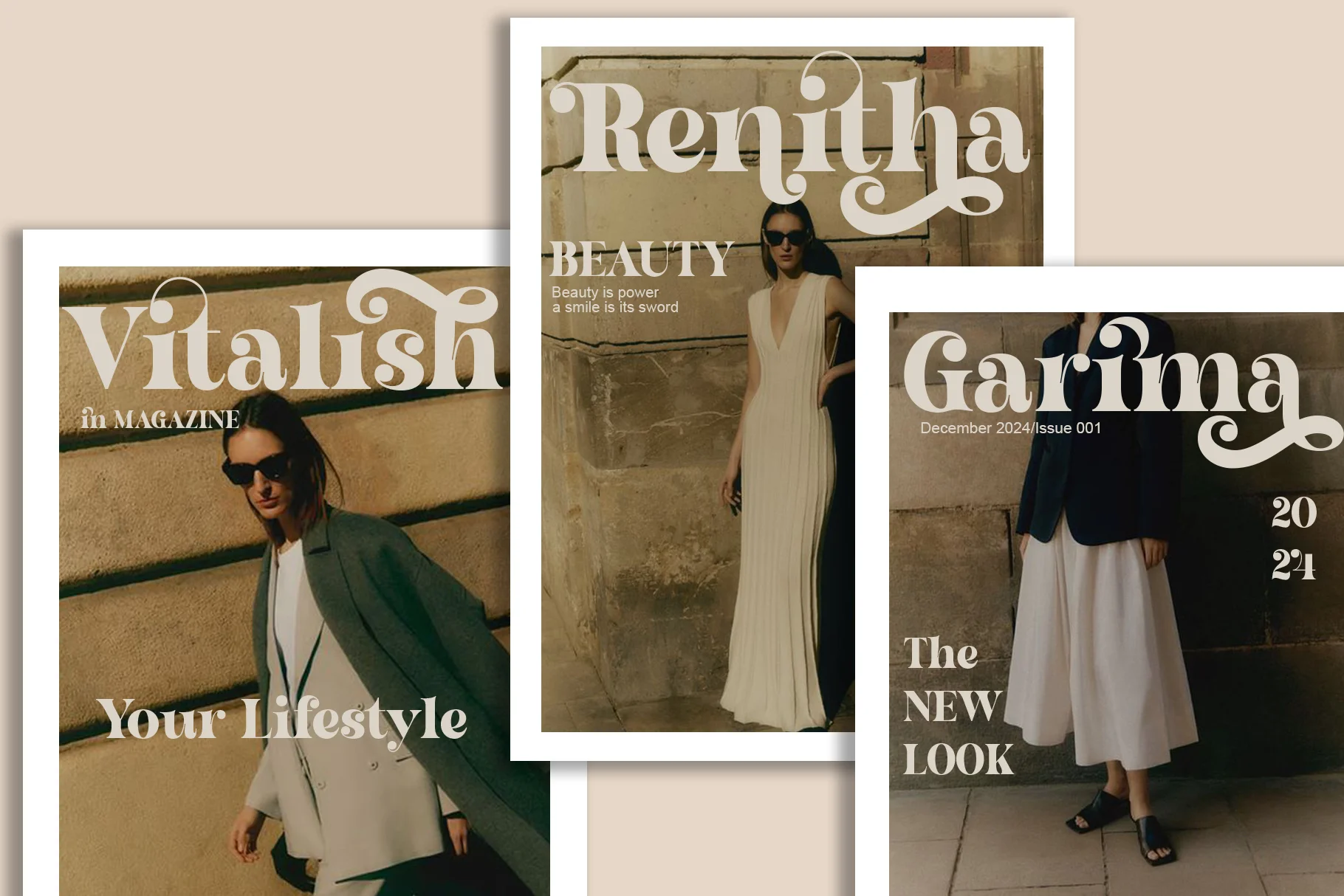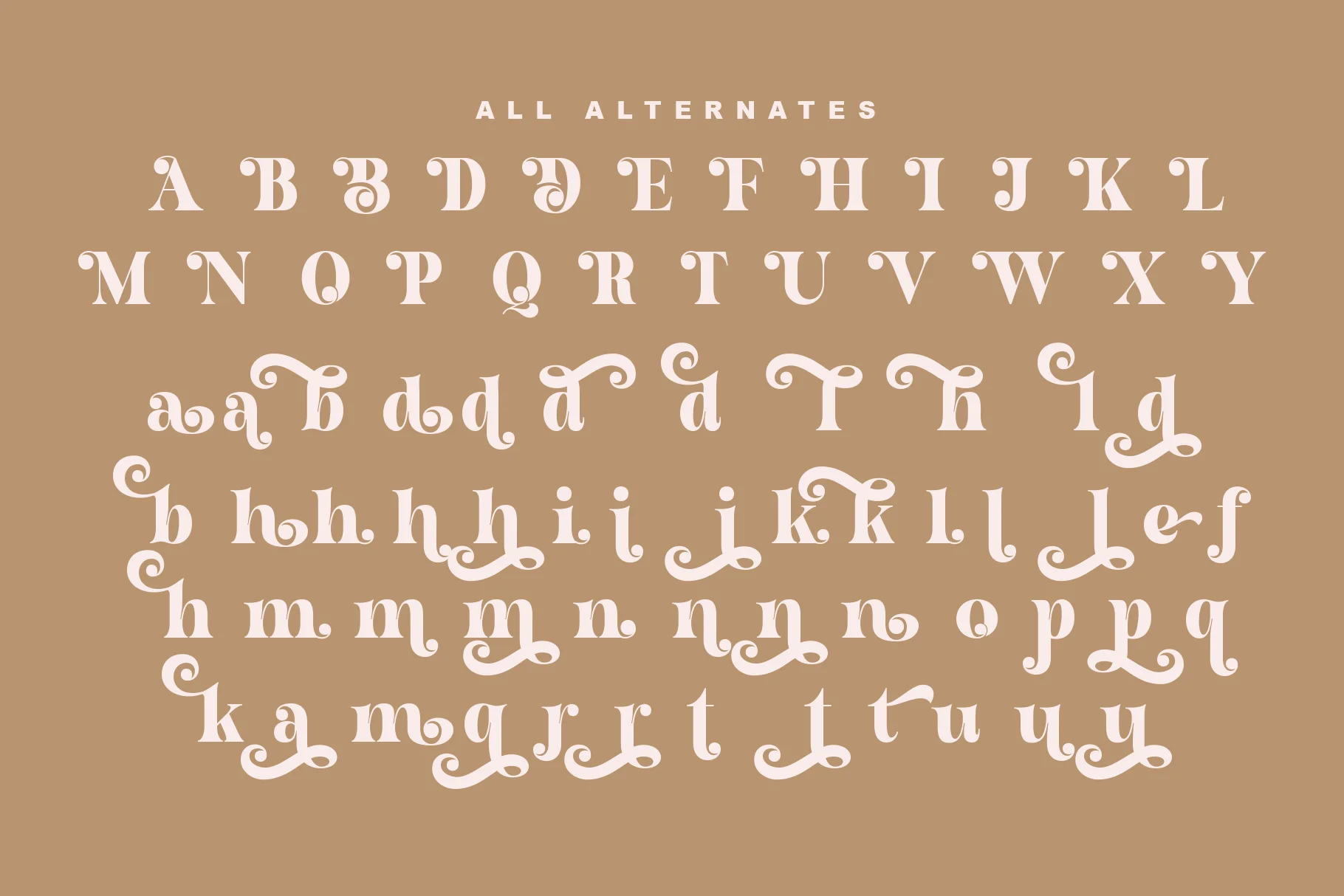
Bagelin
Bagelin is a contemporary serif display font that expertly blends a classic look with a bold retro-modern touch. Designed to attract attention, this typeface is perfect for designers looking to instill a sense of luxury and class in their projects. Bagelin's distinctive features are its dramatic, curved strokes and rounded edges, giving it a rhythmic and flowing character. This font features a wide selection of ligatures (letter combinations) and stylistic alternations (character variations), allowing designers to customize text for a more exclusive and less rigid look.